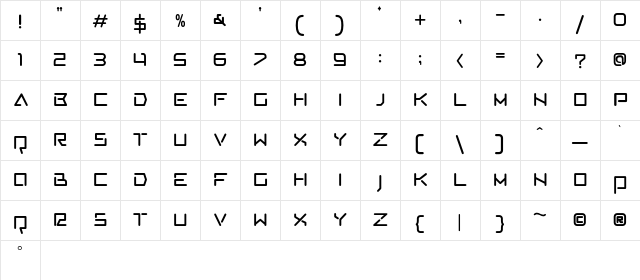
AV Cosmos Regular
Design Context for AV Cosmos Typeface
AV Cosmos is a composed and adaptable typeface that performs quietly and consistently across a wide range of design contexts.